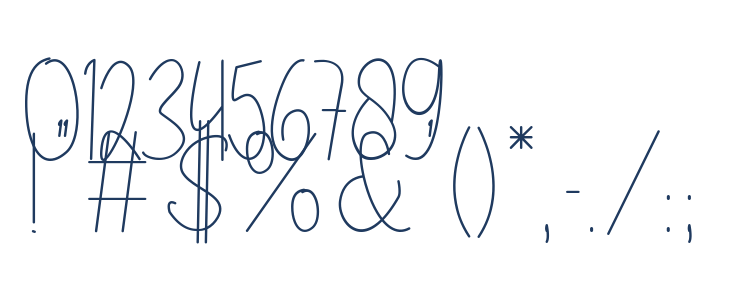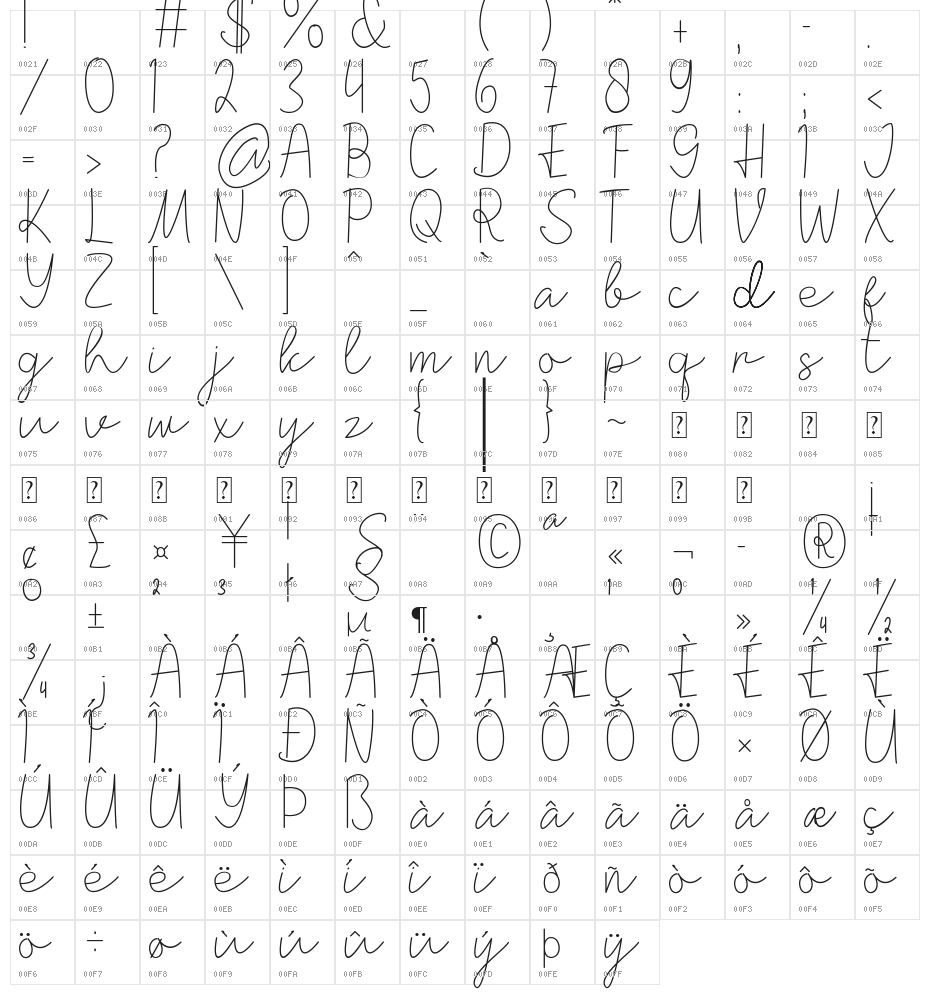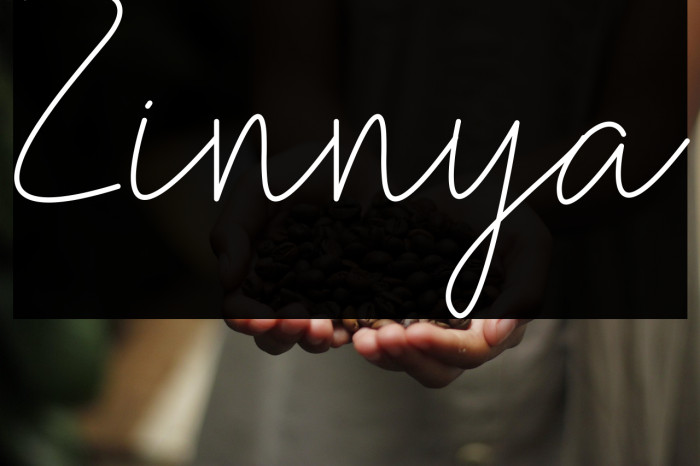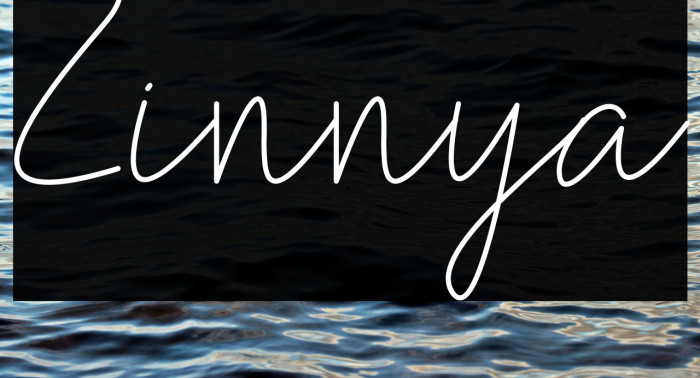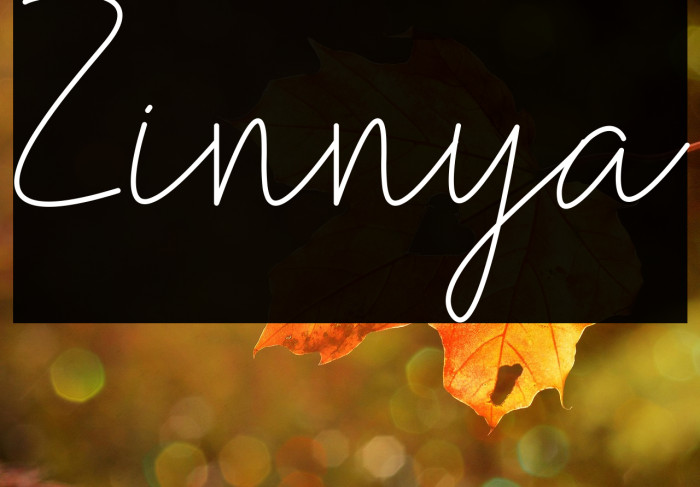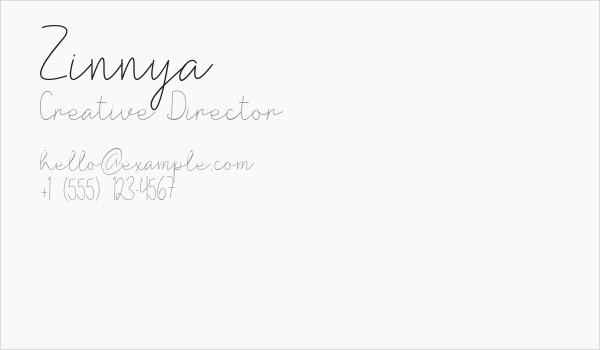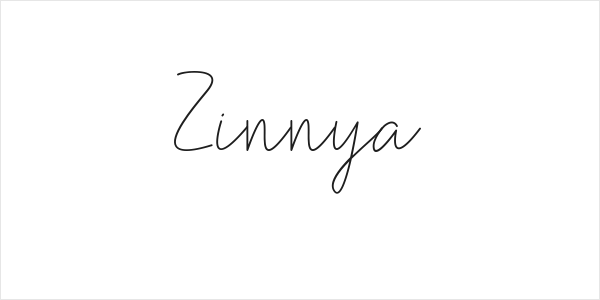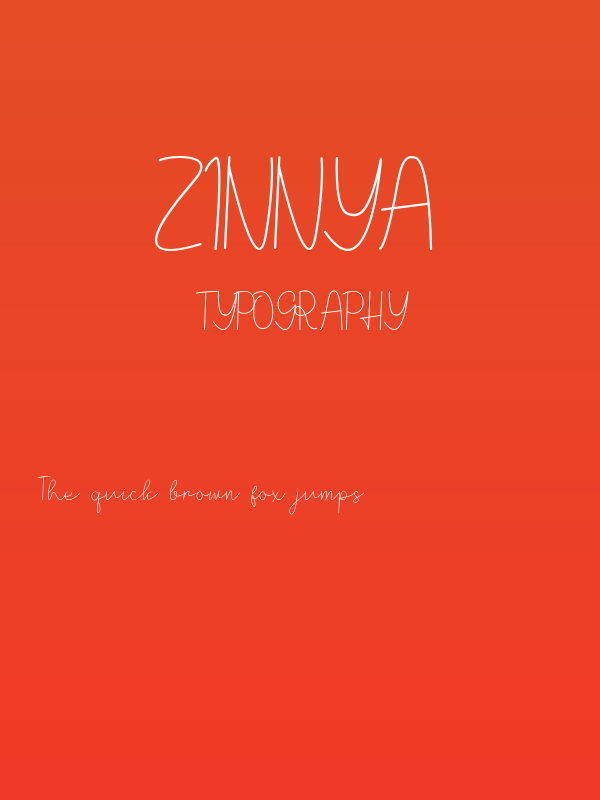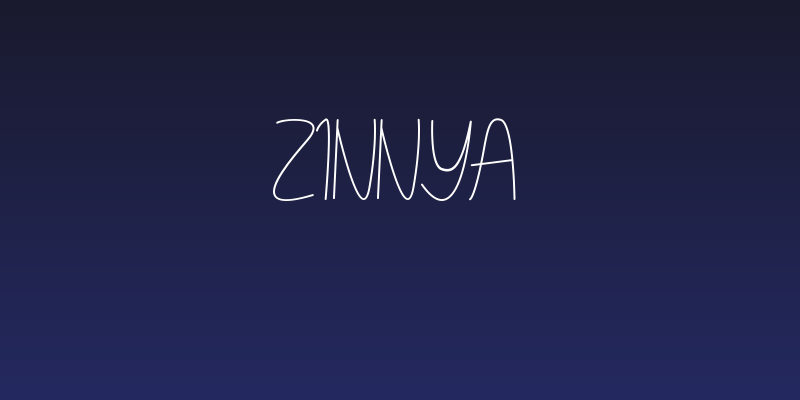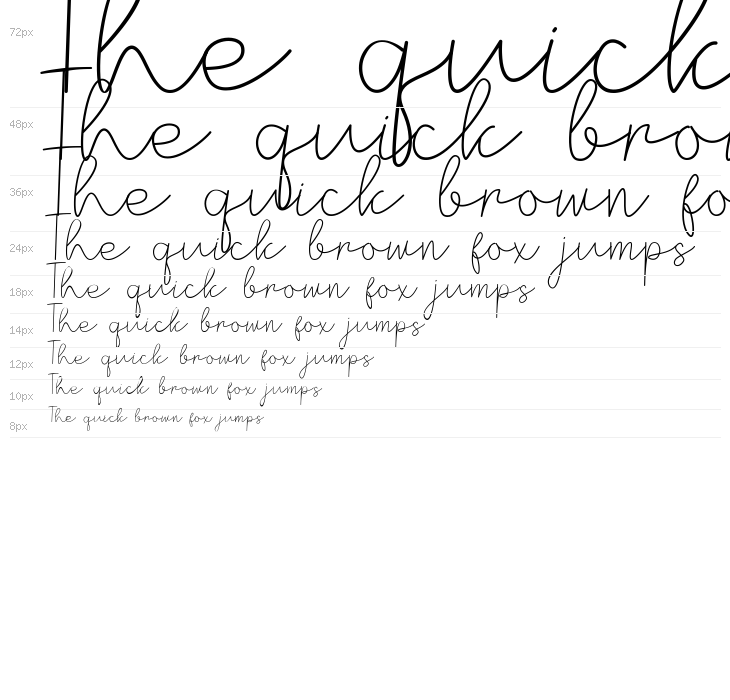
Zinnya Font
Zinnya Description
This font features a playful and whimsical handwritten style, characterized by its smooth, flowing lines and slightly irregular letterforms. The uppercase letters are tall and slender, with a slight slant that adds to the casual, informal feel. The lowercase letters maintain a consistent flow, with rounded edges and a natural, cursive touch. Numbers and special characters follow the same playful aesthetic, making the font versatile for various creative projects. Its overall appearance is light and airy, perfect for adding a personal touch to designs.